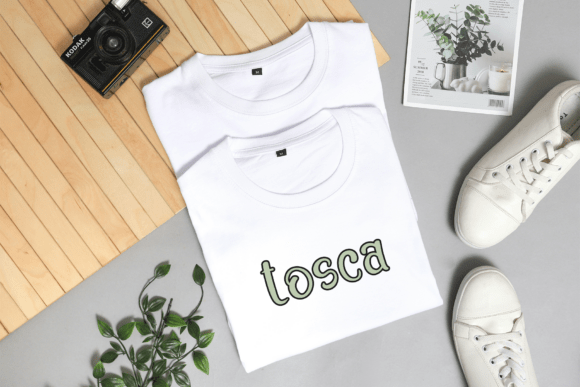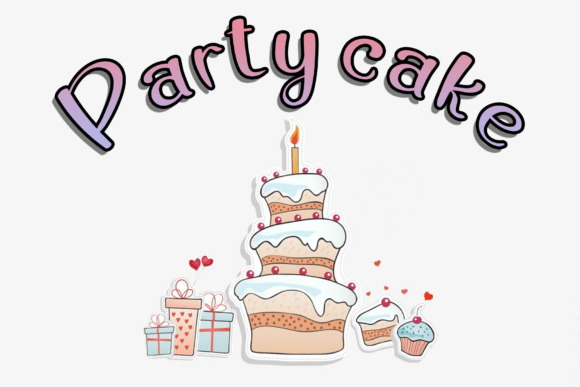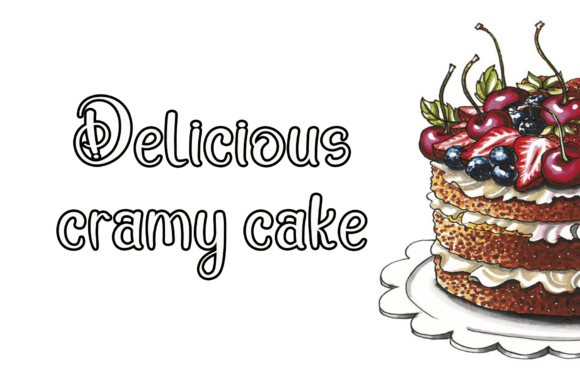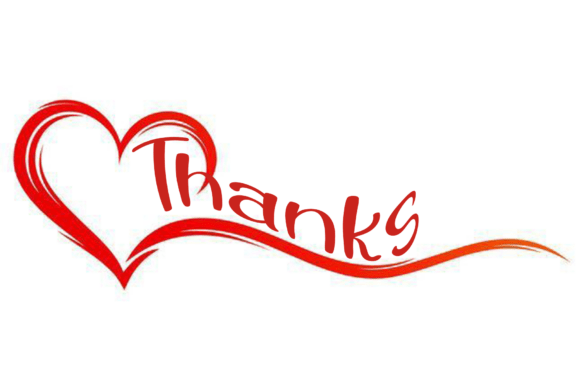
The Perfect Script for Celebrations: Happy Birthday Font
Remember the moment you first started brainstorming ideas for a friend’s birthday card? You wanted it to be special, unique, and truly capture the essence of their personality. The design possibilities swirled in your head, but the right font seemed elusive. That’s where the Happy Birthday Font comes in – a sweet and friendly handwritten font that’s sure to bring a smile to anyone’s face.
This charming font is designed to be versatile and adaptable, making it perfect for a wide range of designs, from birthday cards to social media graphics. With its natural and unique style, the Happy Birthday Font is a valuable asset for designers looking to add a personal touch to their creations. Whether you’re a seasoned pro or just starting out, this font is sure to be a hit with your clients and audience alike.
Happy Birthday Font Key Features
- Unique Characteristics: The font features a playful and celebratory design, with bold and vibrant lines that evoke a sense of joy and festivity.
- Font Style: The Happy Birthday Font is a display font, making it ideal for use in titles, headings, and other emphasis areas.
Happy Birthday Font Review
Overall, I was quite excited to dive into the Happy Birthday Font, hoping for a unique and playful take on traditional birthday typography. ✨ Here are a few things that really work well:
- Cute and colorful illustrations: The font comes with adorable illustrations of balloons, candles, and other birthday-themed graphics that can add a fun touch to any design project.
- Customizable: The font offers a range of customization options, allowing users to adjust the color, size, and style of the illustrations to fit their specific needs.
- High-resolution graphics: The illustrations are high-resolution and clear, making them perfect for use in print or digital designs.
However, there are a few limitations that I think are worth mentioning:
- Limited font options: While the illustrations are a great touch, the font itself is quite basic and doesn’t offer many variations or styles to choose from.
- Some illustrations may feel too childish: Depending on the project, some of the illustrations may feel too childish or immature, which could be a drawback for certain designs.
- May not be suitable for formal designs: The Happy Birthday Font is definitely best suited for casual, fun designs – it may not be the best choice for more formal or professional projects.
Overall, the Happy Birthday Font is a fun and playful addition to any design project, but it may not be the best choice for every situation. With a little creativity and customization, it can add a lot of personality to your designs – but be aware of its limitations.
The Happy Birthday Font is perfect for creating personalized birthday invitations, party decorations, and greeting cards.